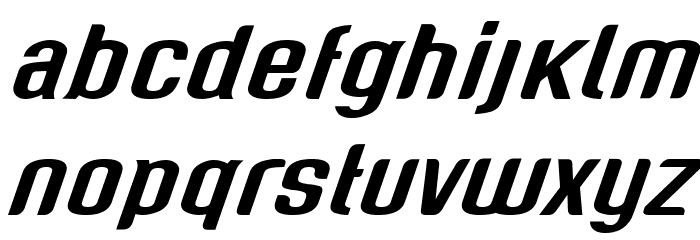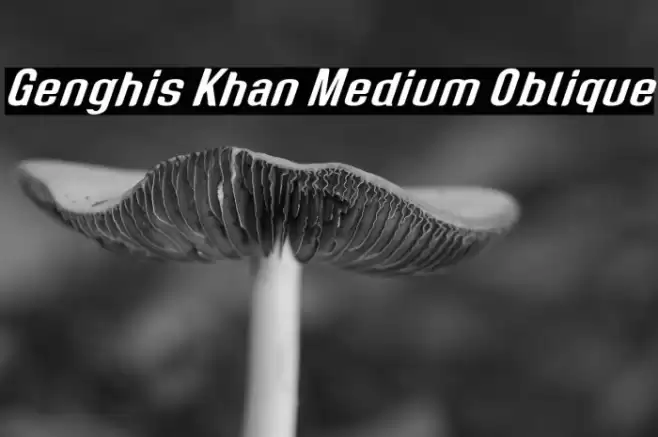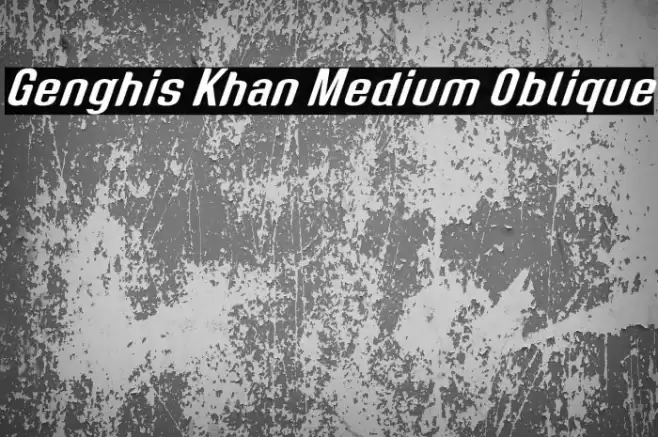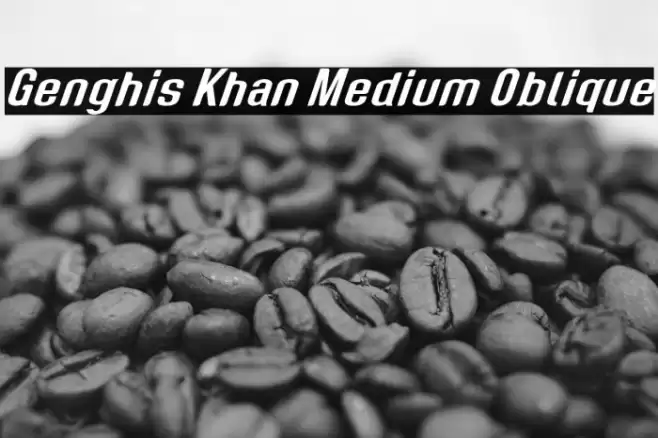
Genghis Khan Medium Oblique Font
This font exhibits a modern and dynamic style with a distinct oblique slant, giving it an energetic and forward-moving appearance. The characters are bold and slightly condensed, providing a strong presence while maintaining readability. The uppercase and lowercase letters are well-balanced, with consistent stroke widths that offer medium contrast. The numerals are clear and proportional, complementing the overall design. Special characters are included, maintaining the font's cohesive style. This font is versatile, suitable for various design needs.
A modern, oblique font with bold, slightly condensed characters and medium contrast.
- Proposed Projects: Ideal for branding, advertising, sports-related designs, and dynamic headlines.
- Use Case: Headlines, Logos, Advertising